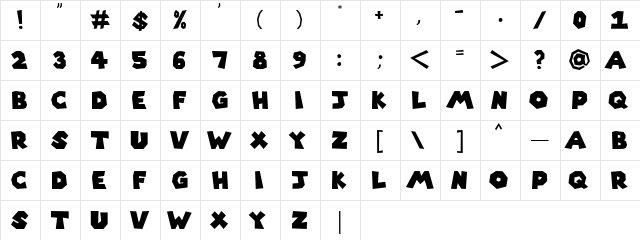
Super Mario 256 Regular
Design Context for Super Mario 256 Typeface
Super Mario 256 is a composed and adaptable typeface that performs quietly and consistently across a wide range of design contexts.